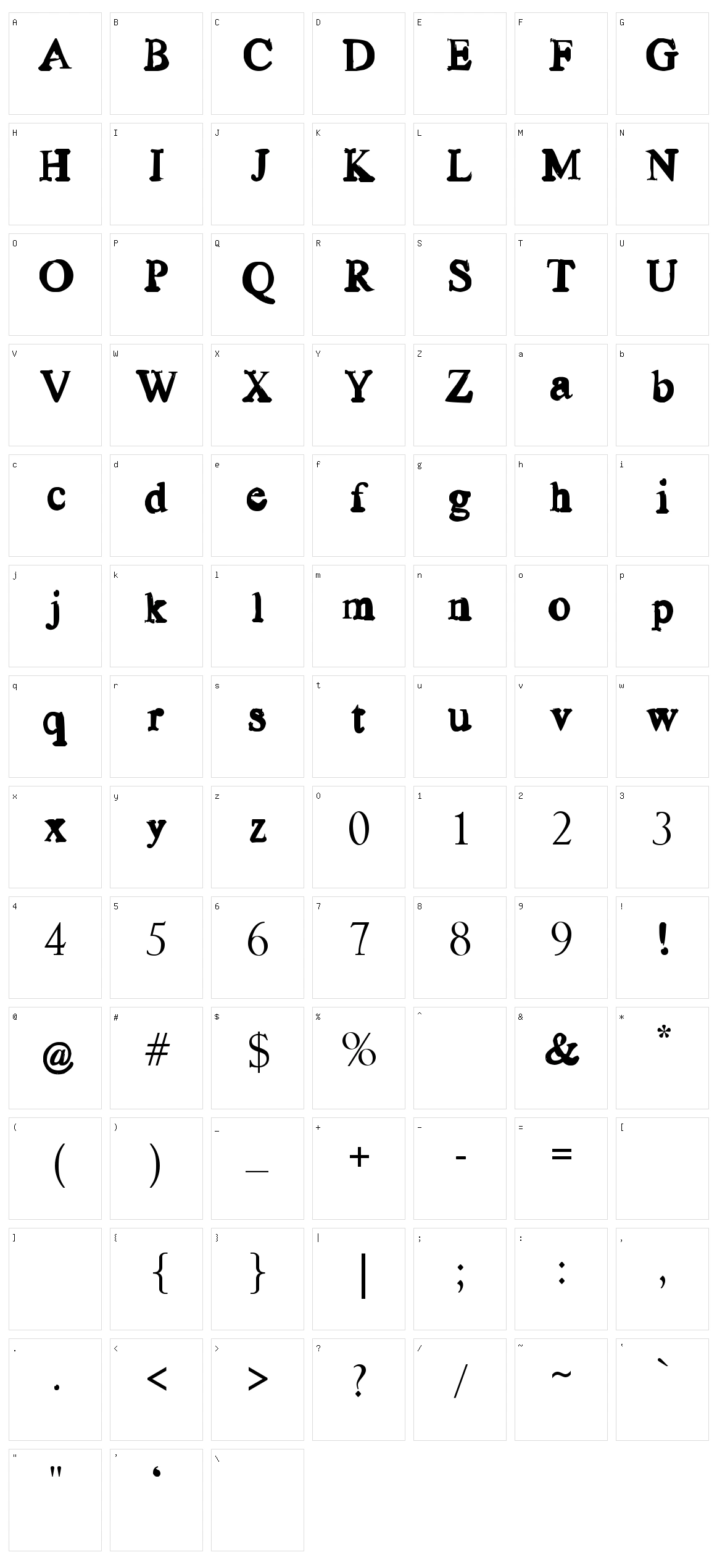
The free font Old news is carefully designed by Alessandra M, showcasing a thoughtful balance of creativity and usability and falls under the Eroded font style. When you download the ZIP file, it contains only 15.51 KB of font files, making it lightweight and quick to download. Please review the license details below to understand permitted usage and distribution rights. If license information is not available, we recommend using this font for personal projects only or contacting the author directly for commercial usage permissions.